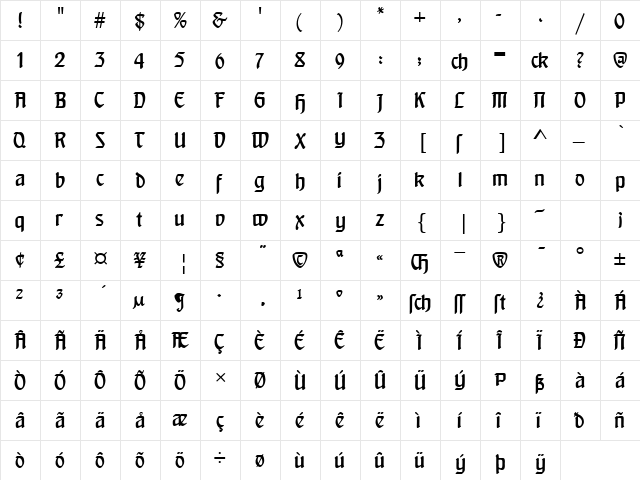
Behrensschrift Regular
| Designer | Peter Behrens (digitized by Dieter Steffmann) |
Design Context for Behrensschrift Typeface
Behrensschrift takes a measured approach to typography — its balanced proportions and neutral character make it a reliable workhorse for both digital and print work.